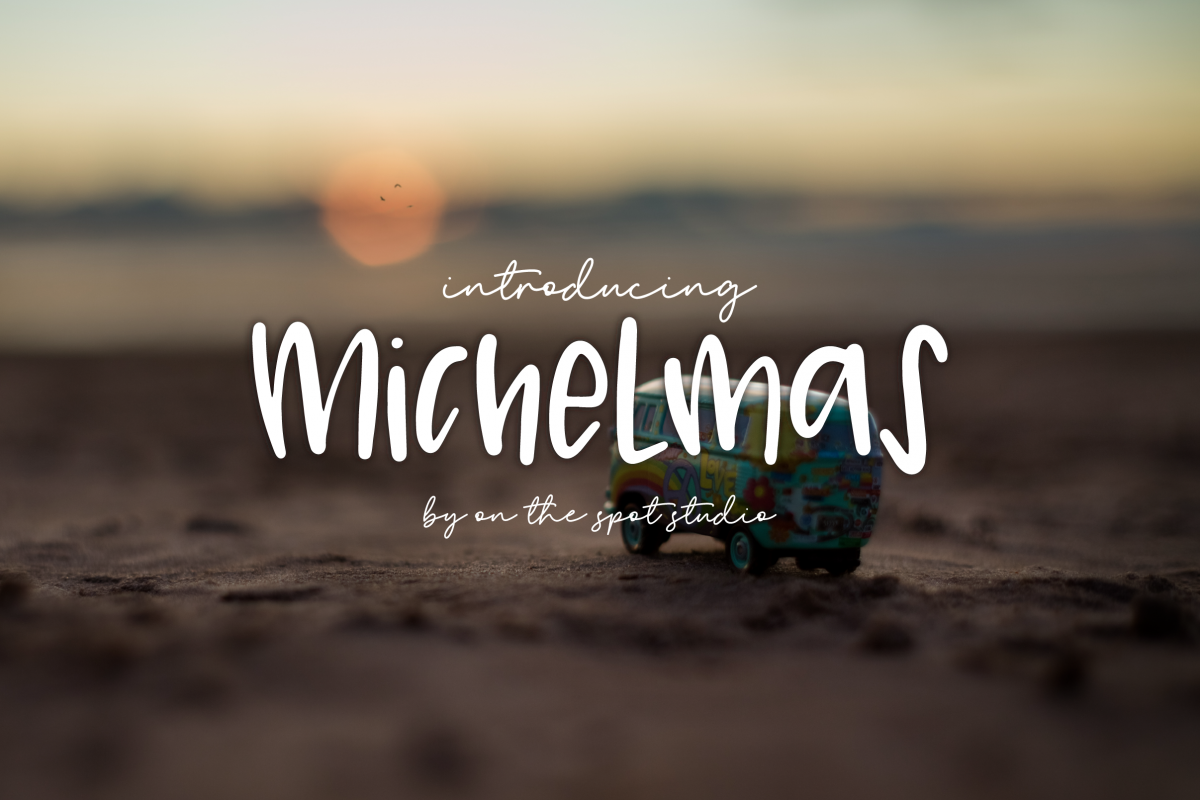
Mickelmas - A Quirky Print
Mickelmas
Meet Mickelmas! A quirky, thick print great for branding, logo design, print and cut, silhouette/cricut projects and more! Mix and match uppers and lowers for a unique design!